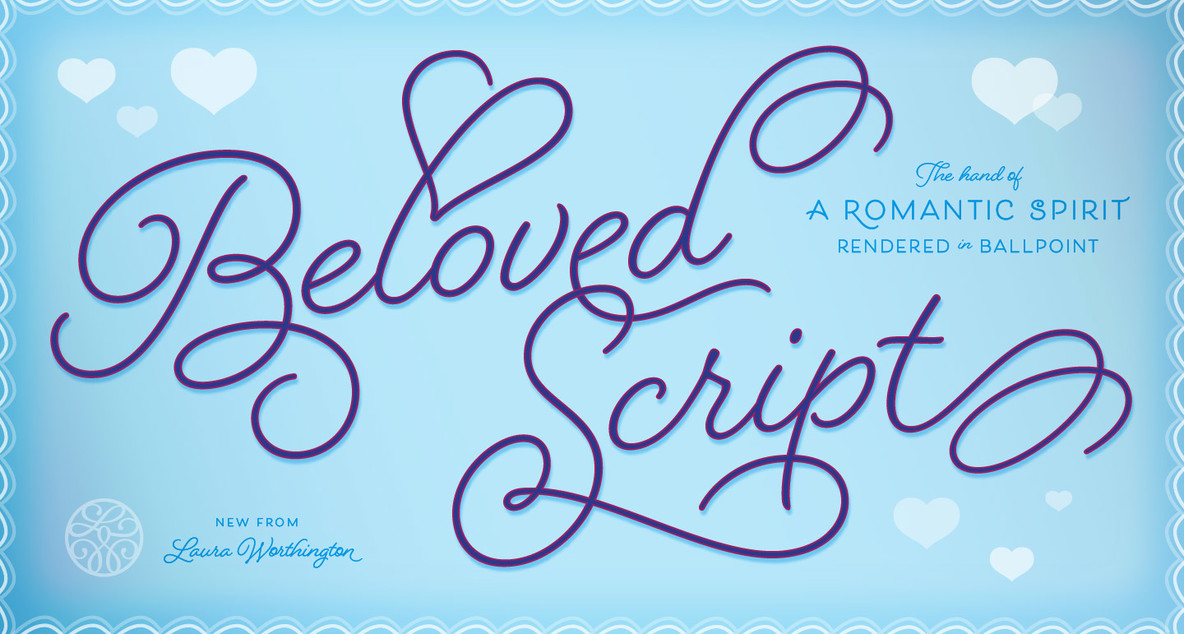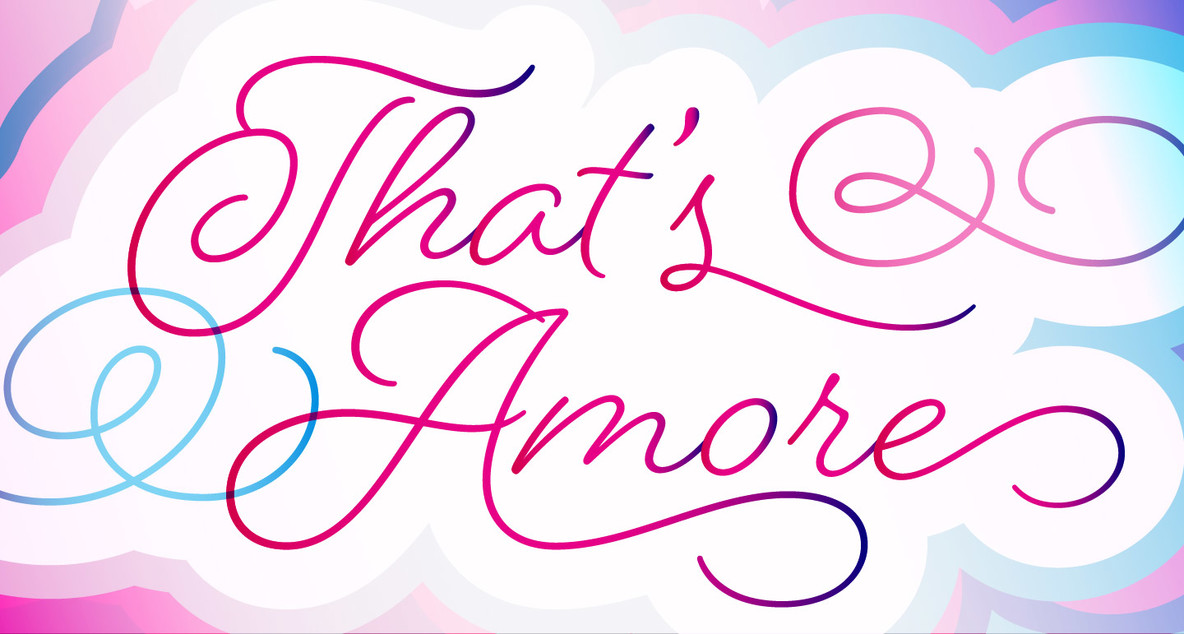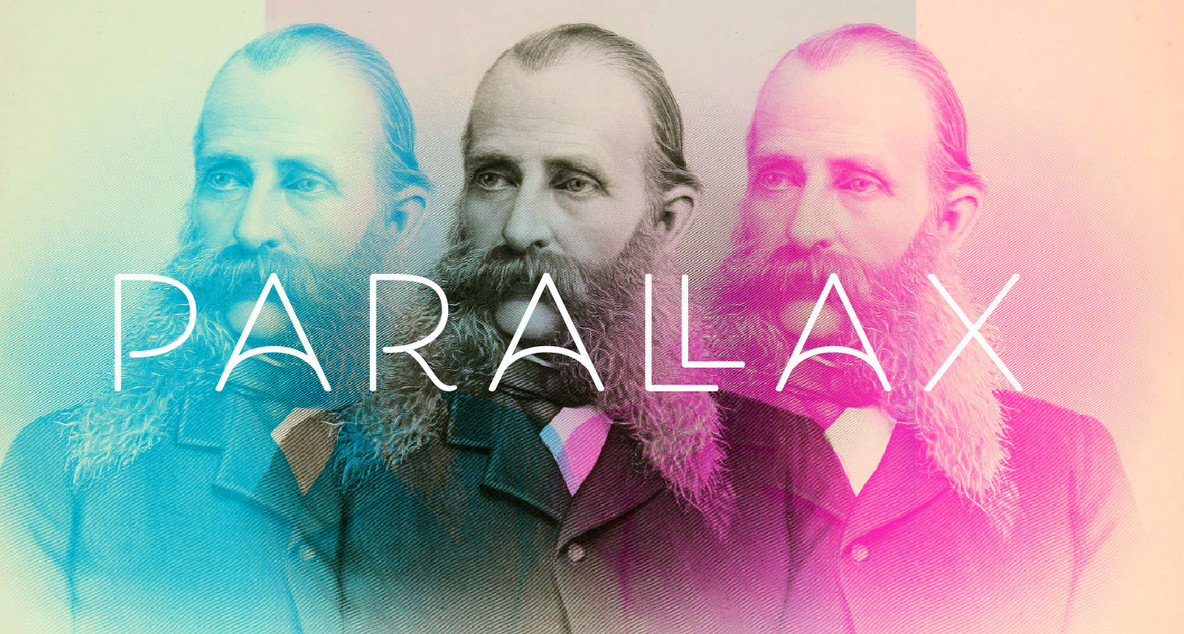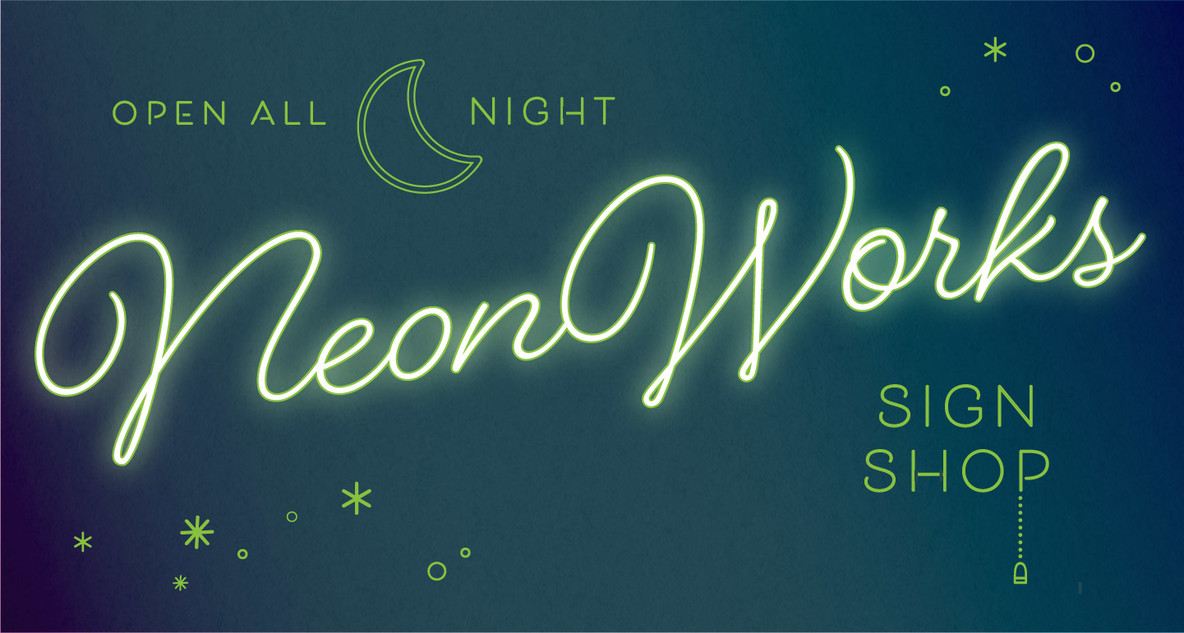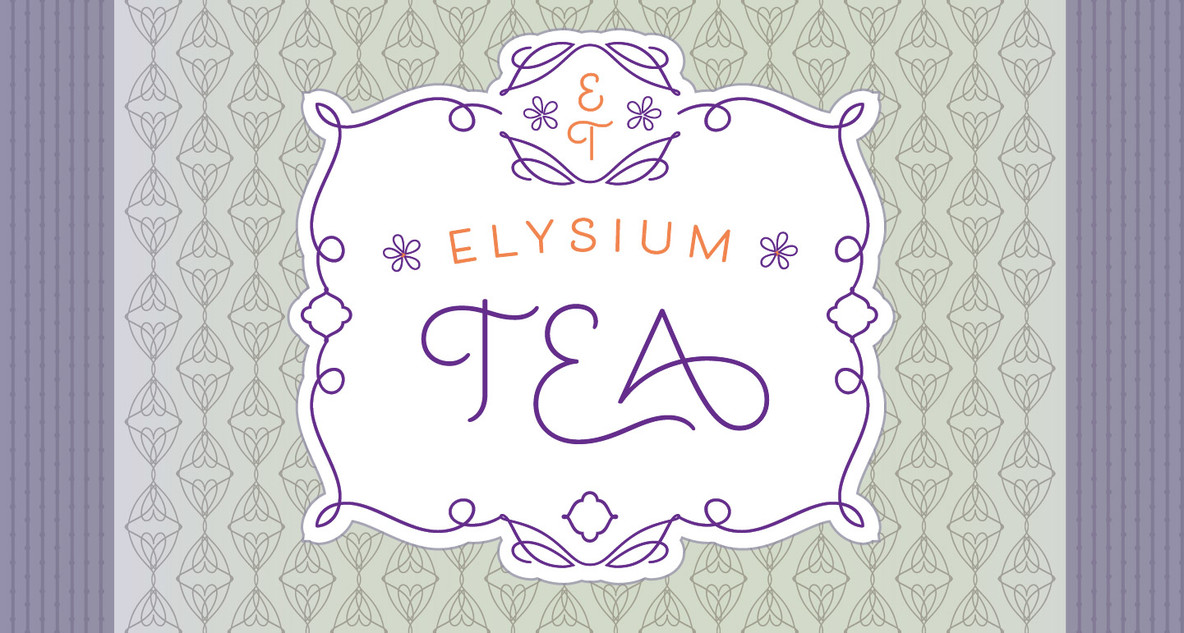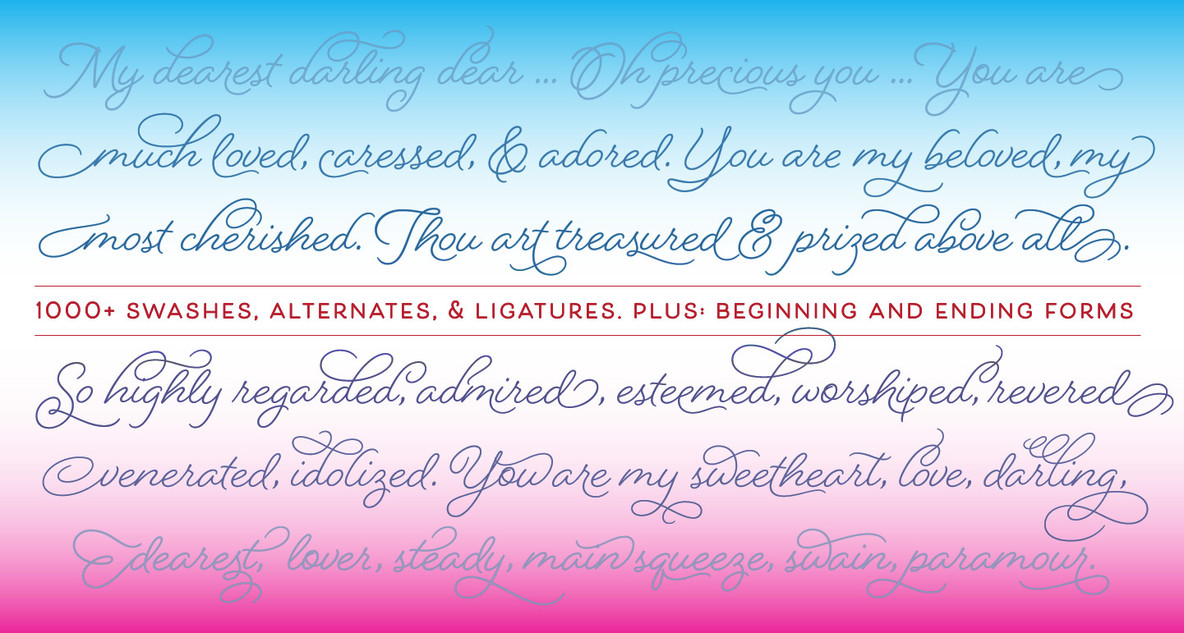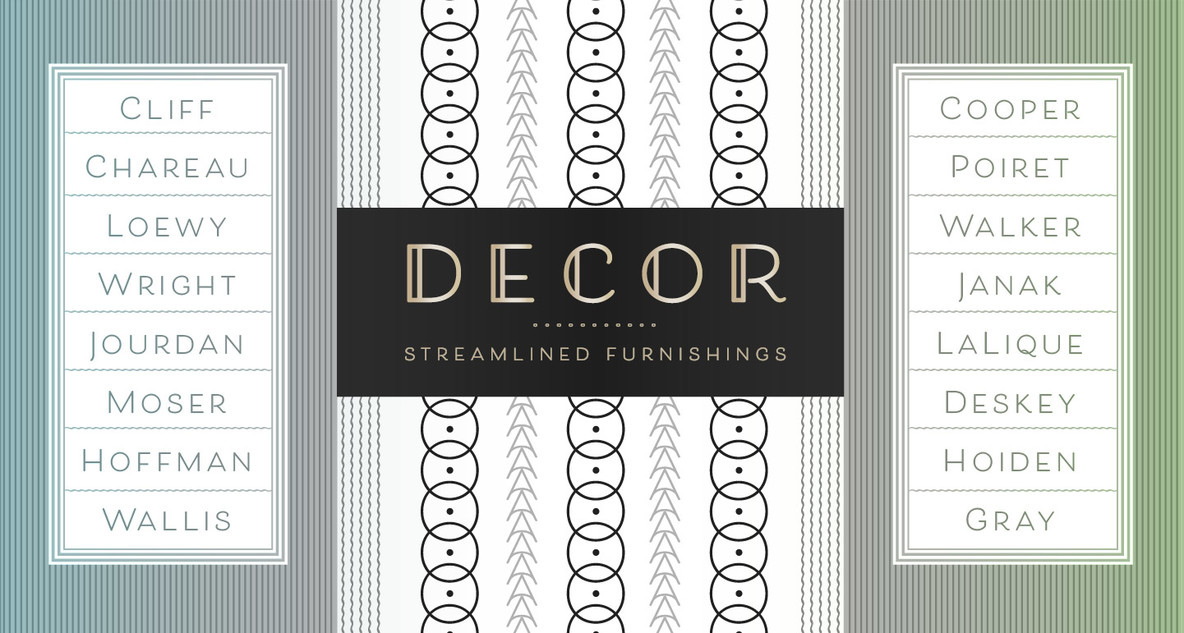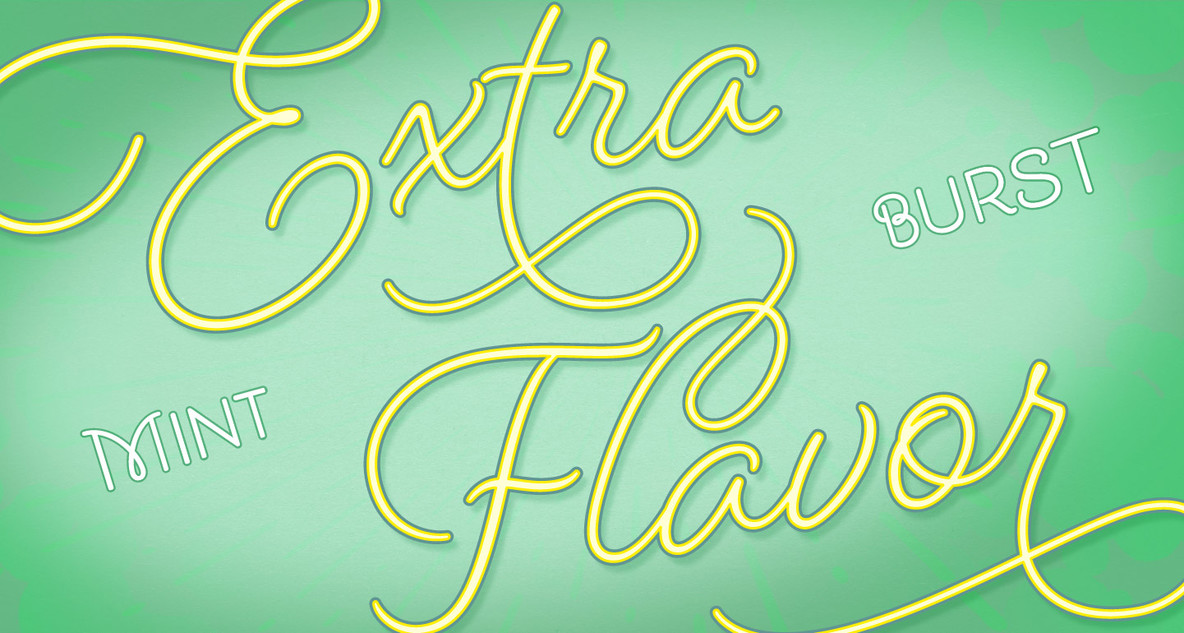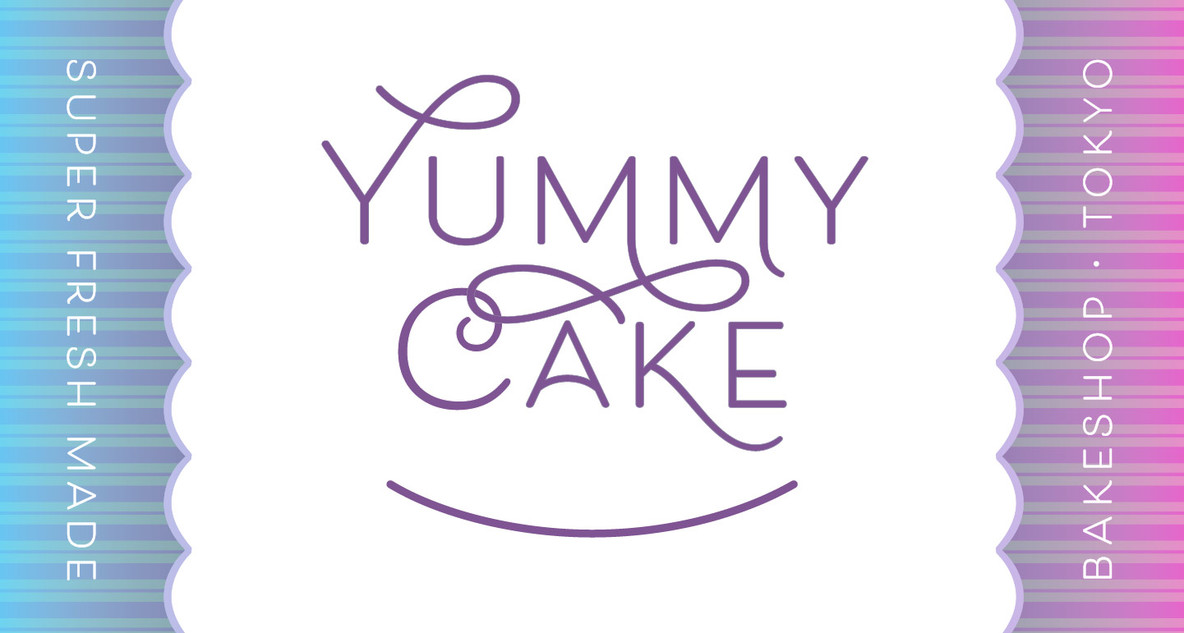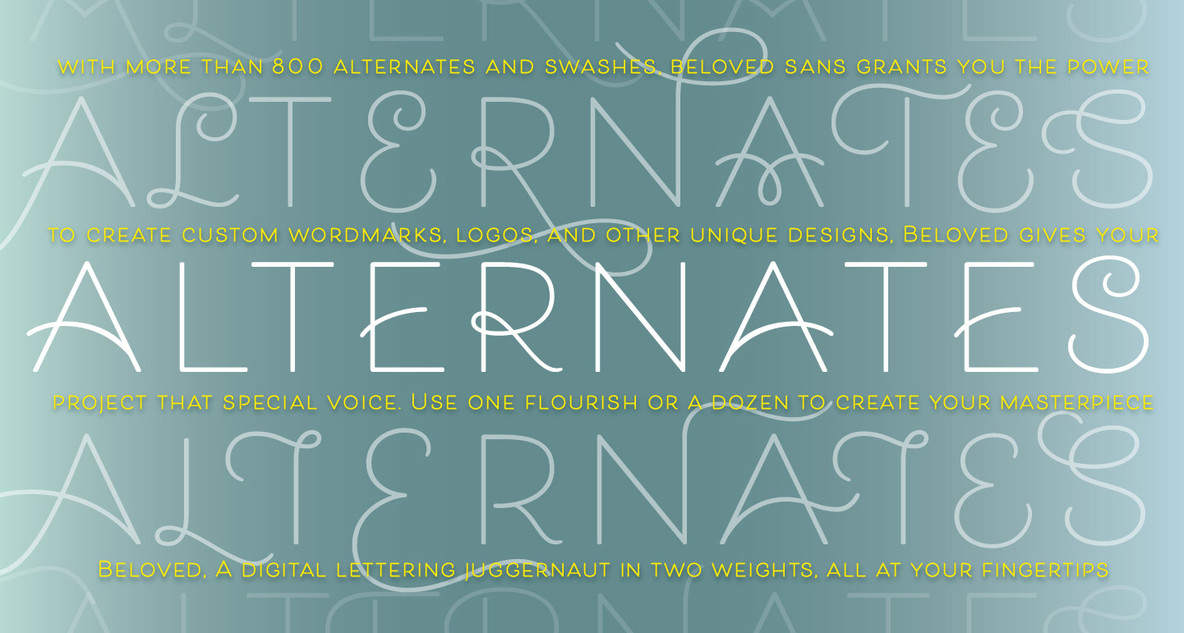
Beloved
Beloved Script - The hand of a romantic spirit, rendered in ballpoint.
As befits its name, Beloved Script suggests the hand of a romantic spirit … albeit one writing with a simple pen. Its monoline strokes evoke classic 20th-century penmanship achieved with a ballpoint or rounded nib.
Whereas many digital script typefaces impose simple "on or off" rules about character connections, Beloved Script embodies a more casual and natural state of handwriting — the semi-connected script. These disconnections are apparent in the lower case t, and between rounded characters such as o and v, enabled by more than 40 ligatures.
Out of the box, Beloved Script is lively but casual. But with over 1000 swashes and alternates to choose from, including capitals, beginning, and ending forms, it can become a beautifully decorative spectacle, powerful for custom headlines and wordmarks. Includes regular and bold weights. Explore what Beloved Script can do for you.
Beloved Sans - A simple sans that likes to get swashy!
This monoline sans-serif subtly evokes early 20th-century hand lettering made with a ballpoint pen or rounded nib. It's an all-capitals face with corresponding small capitals scaled to about 85% of the original letters — just enough differentiation to be distinctive in the display settings for which it's designed.
Beloved Sans includes over 800 swash and alternate forms, making it incredibly useful and versatile for wordmarks and distinctive headlines. The titling variant adds an extra stroke to the verticals for a hint of Art Deco style, while the swashed capitals add calligraphic flair to an otherwise understated sans. Includes regular and bold weights, and lining and old style numerals. Mix and match characters for package designs, menus, and invitations — and for even more typographic power, mix it with its flowing companion face, Beloved Script.
Beloved Ornaments - a perfect companion to Beloved Script and Beloved Sans.